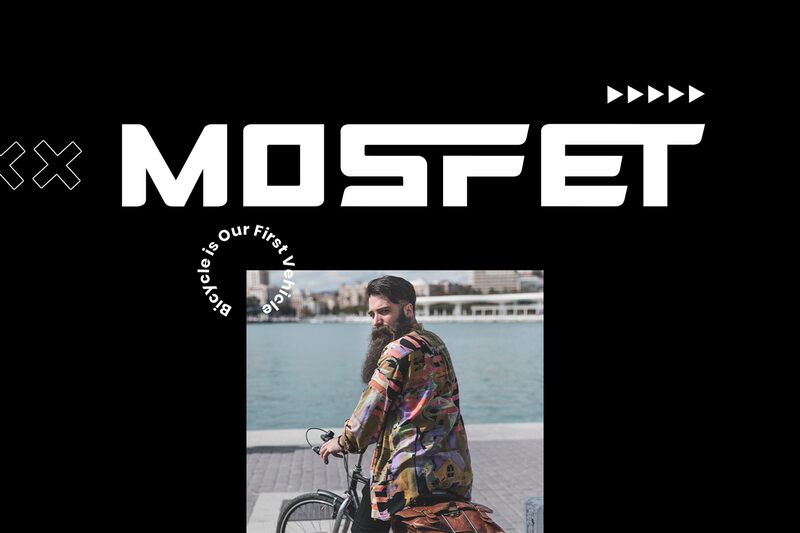
MOSFET is a bold, wide techno font designed by 177Studio.com. Its display type and style make it perfect for futuristic projects, modern technology designs, and digital artworks.
MOSFET